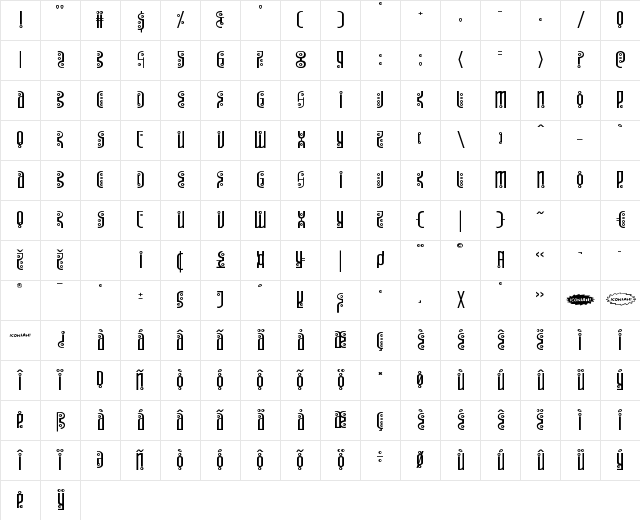
Underground Rose Expanded Expanded
Style: Expanded
Design Context for Underground Rose Expanded
Underground Rose Expanded softens its letterforms with rounded terminals, giving it an approachable, friendly quality that works well in consumer-facing and digital contexts.
Font Pairing: Pairs well with a rounded or humanist sans for body copy, maintaining the friendly tone without relying on Underground Rose Expanded to carry extended reading.
Pro Tip: Use Underground Rose Expanded for UI elements, app interfaces, and anywhere a friendly, approachable tone needs to be maintained without sacrificing clarity.